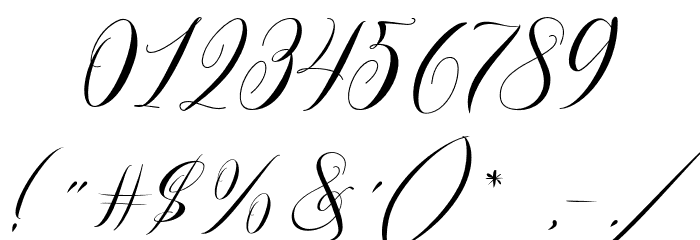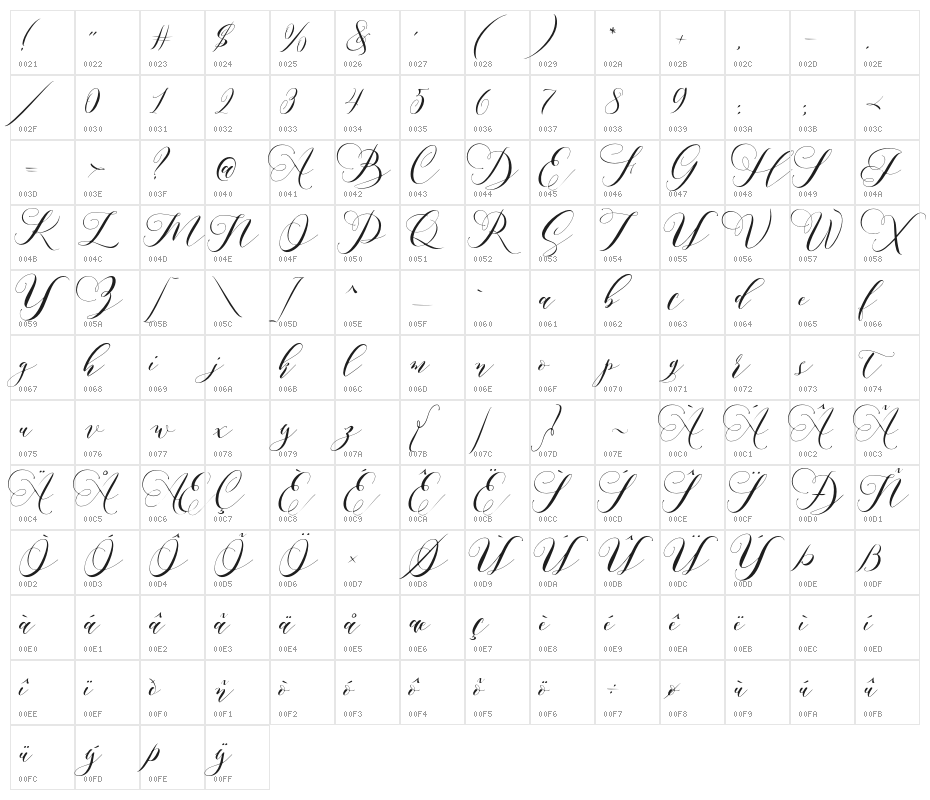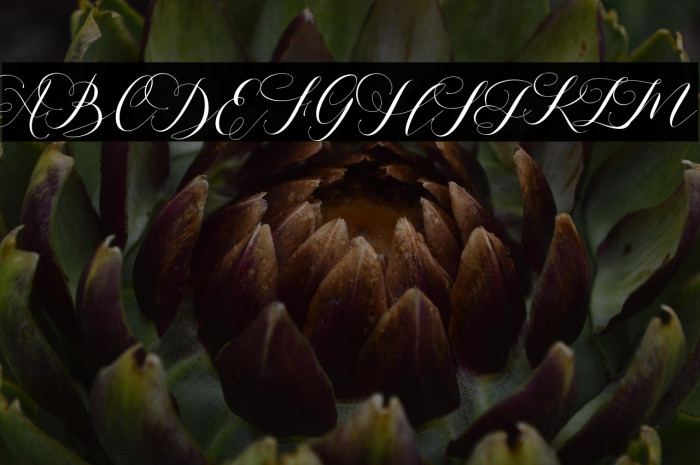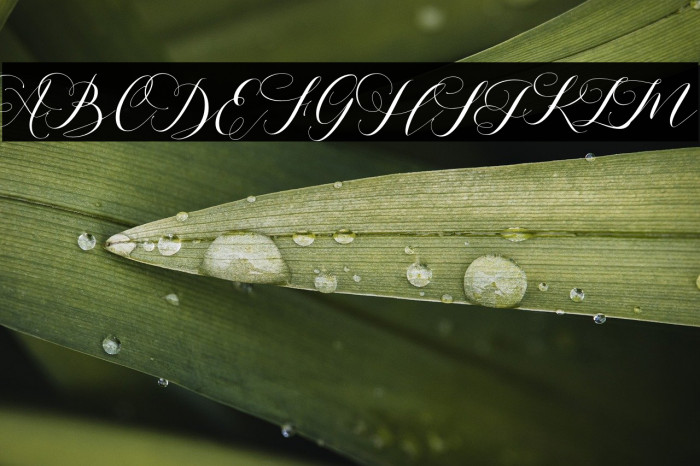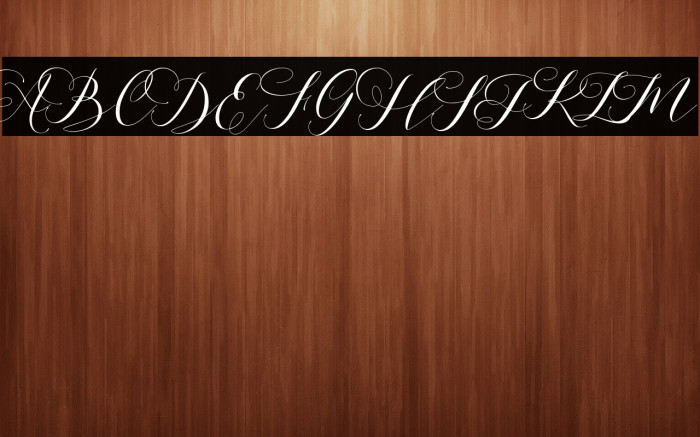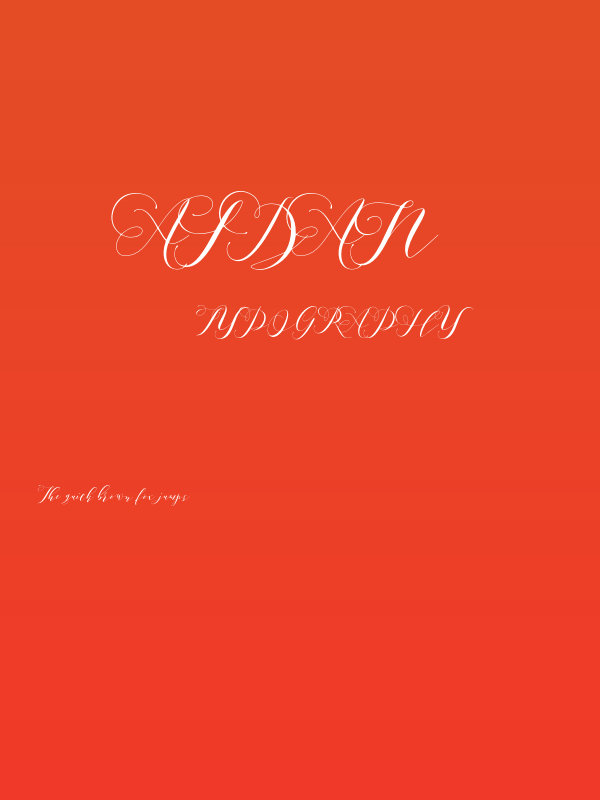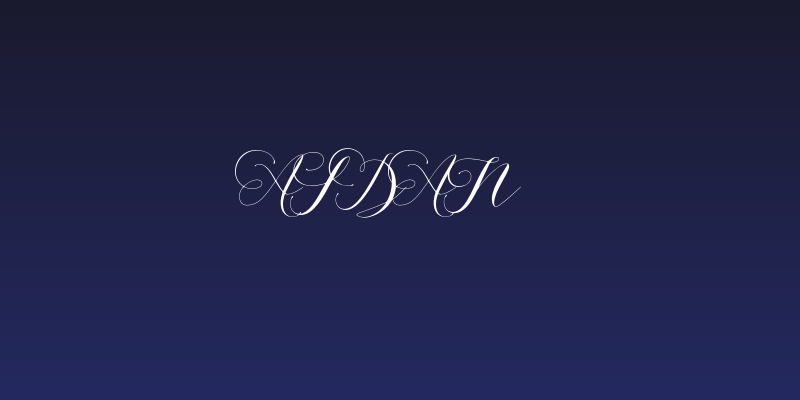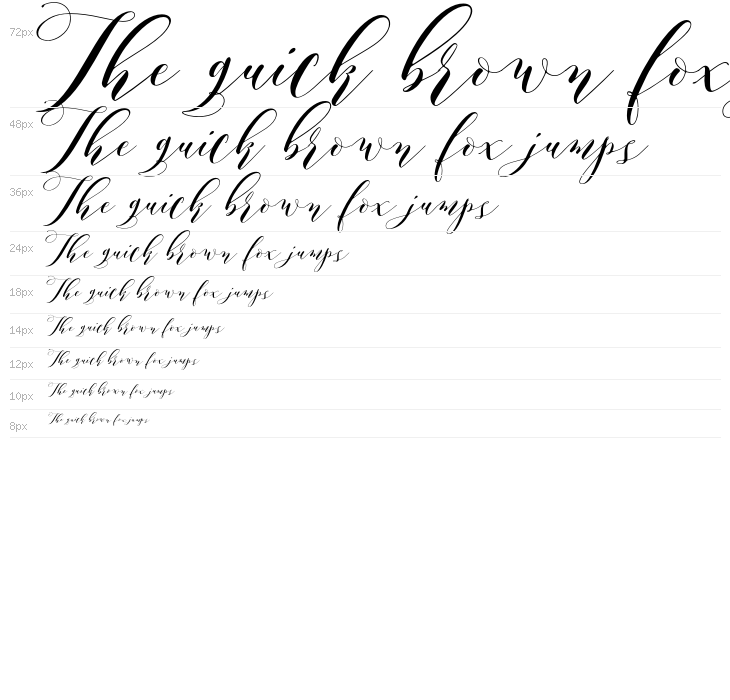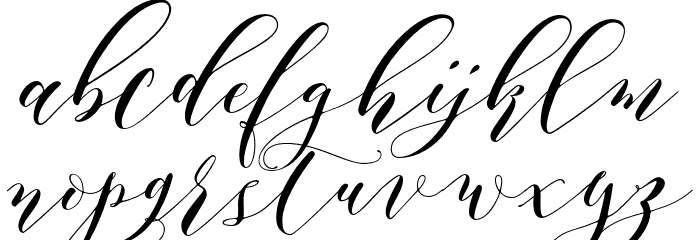
Aidan Font
Aidan Description
This elegant script font features a sophisticated and flowing design, characterized by its intricate swirls and flourishes. The uppercase letters are particularly ornate, with elaborate loops and curves that give a sense of movement and grace. The lowercase letters maintain a consistent style, offering a harmonious blend of thick and thin strokes that enhance readability while retaining an artistic flair. The numerals and special characters are designed to complement the overall aesthetic, ensuring a cohesive look across all text elements. This font is ideal for projects that require a touch of elegance and sophistication.
| Overall Style | Elegant, Sophisticated |
| Proposed Projects | Wedding invitations, luxury branding, elegant stationery, high-end product packaging. |